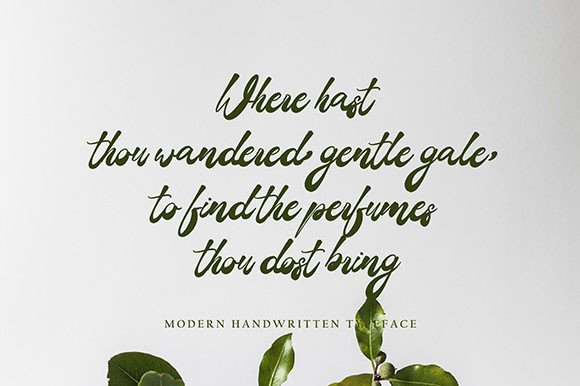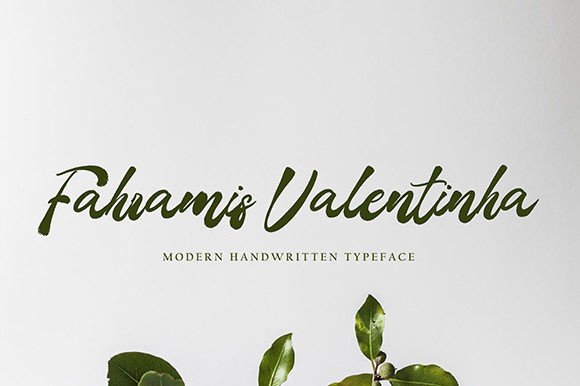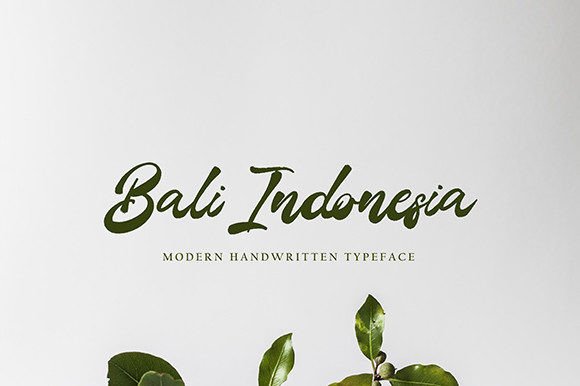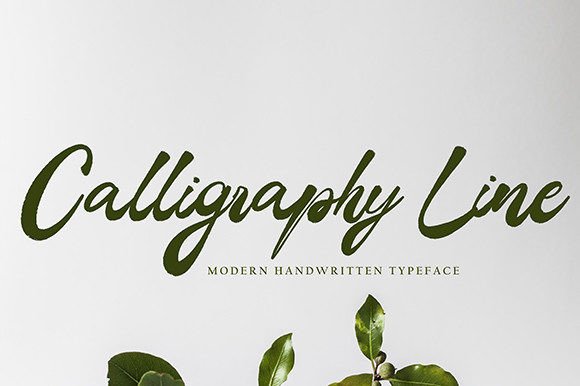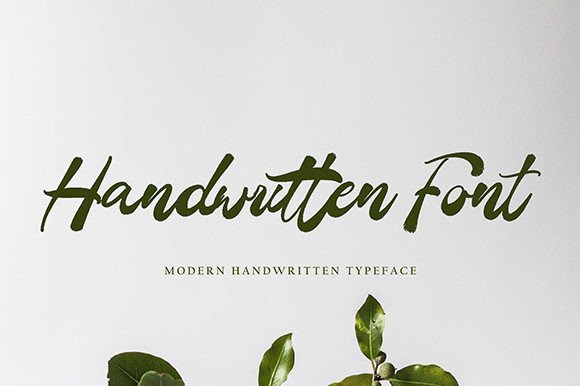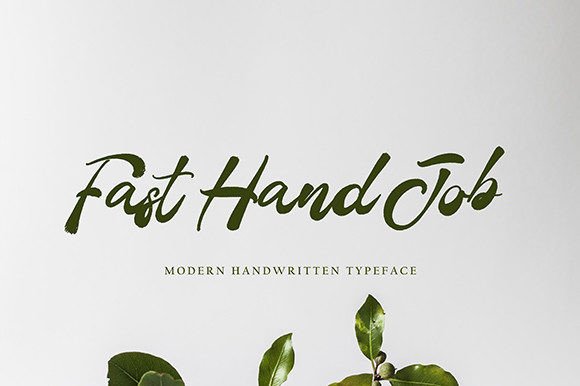
Skaner Bold Font – Free Download
Introduction to Skaner Bold Font
Skaner Bold is a fresh and bold handwritten font perfect for many different projects such as quotes, logos, blog headers, posters, banding, letter, invitation, stationery, etc.
| 👤 Author | Pineungtype & Missinklab |
Skaner Bold is a fresh and bold handwritten font perfect for many different projects such as quotes, logos, blog headers, posters, banding, letter, invitation, stationery, etc.
Key Features of Skaner Bold Font
Why Choose Skaner Bold Font?
Skaner Bold Font offers exceptional quality and versatility, making it a valuable addition to your design toolkit. Whether you’re creating for personal projects or commercial use, Skaner Bold Font delivers professional results.